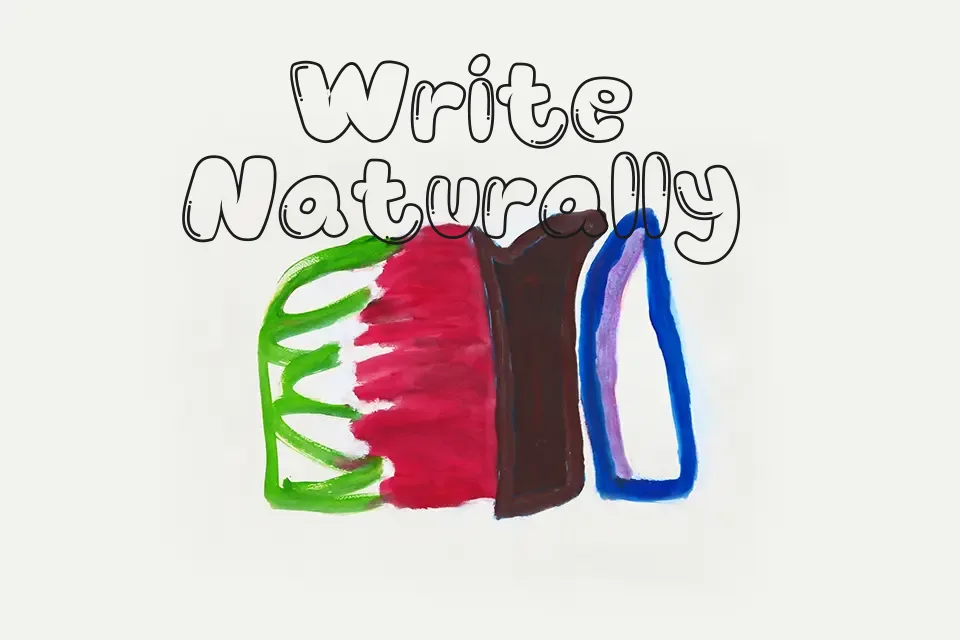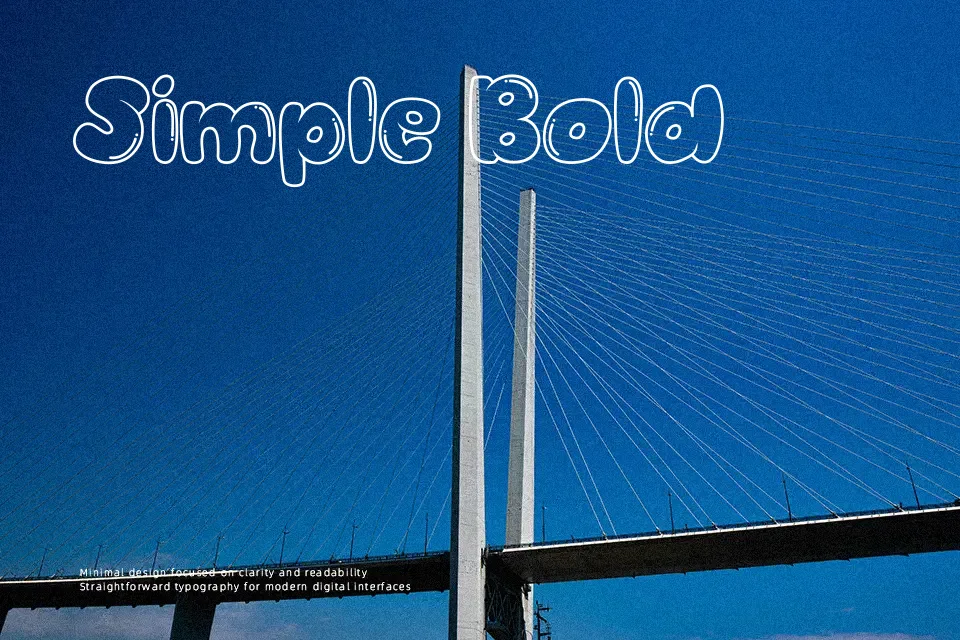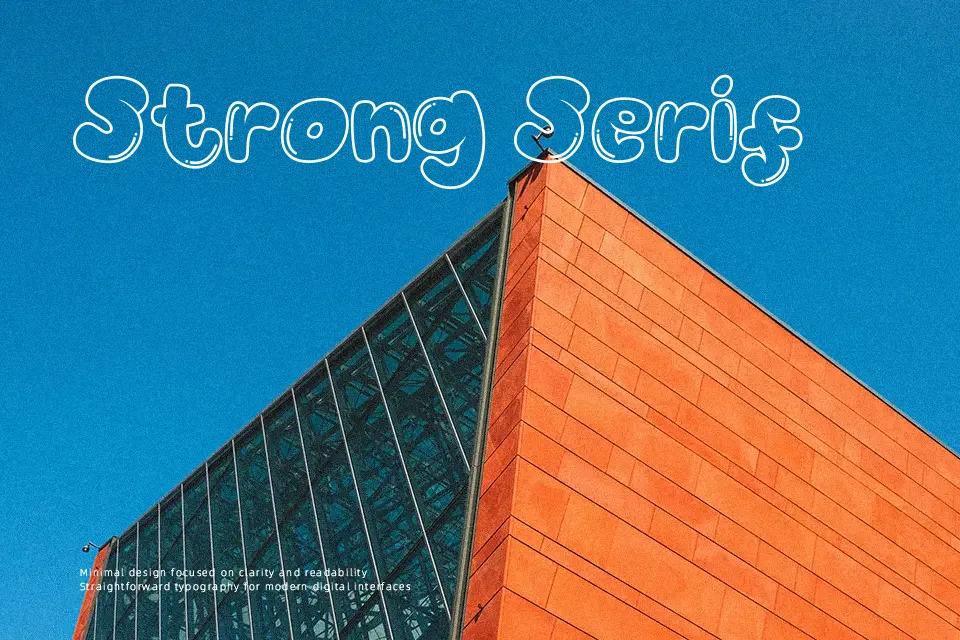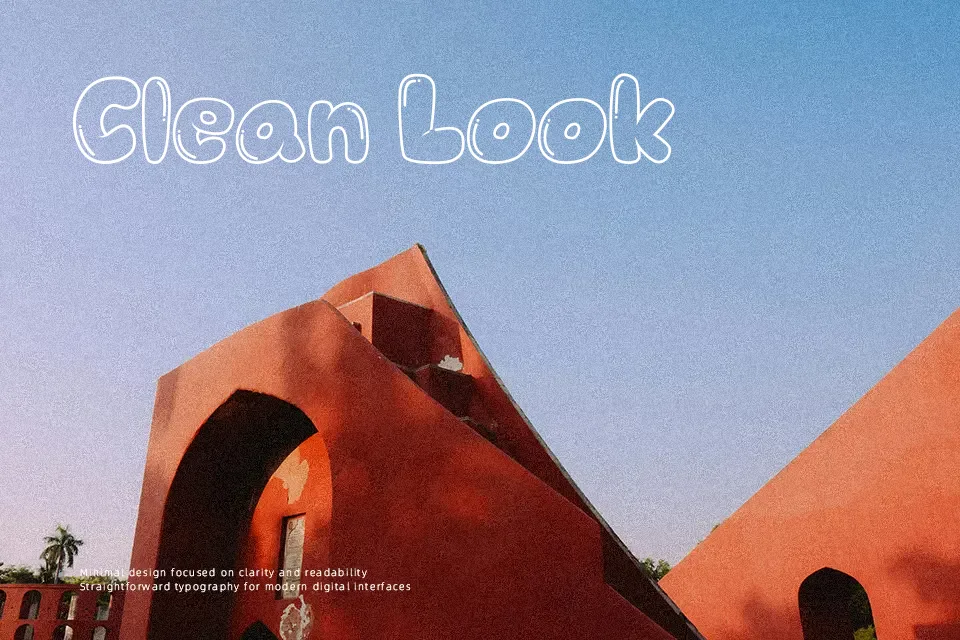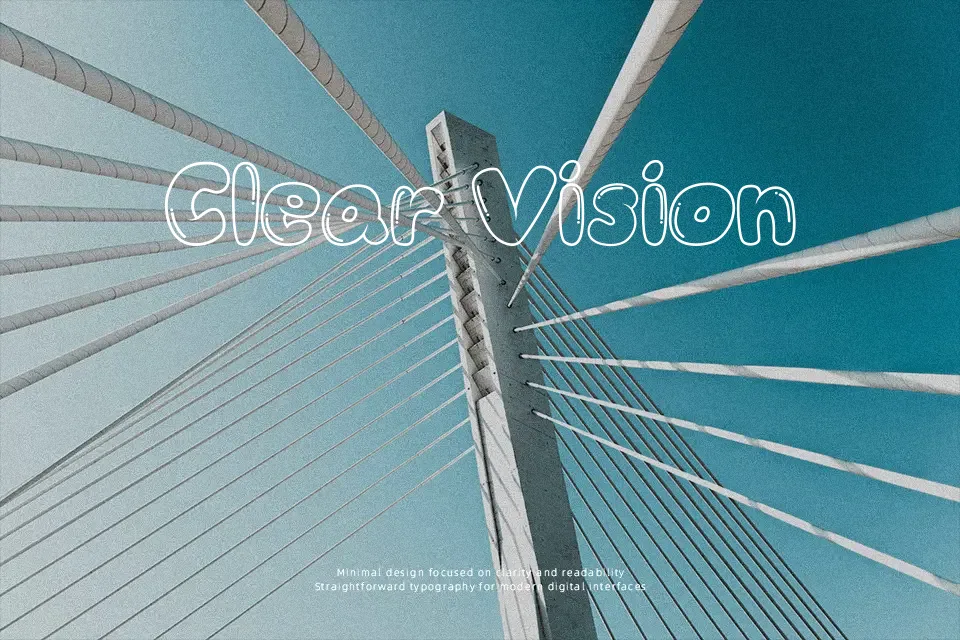
Balonku Font
Designed by Vable Studio
The letters in Balonku are thick, rounded, and slightly inflated, giving the strokes a soft, bubble-like contour with low contrast and tight spacing that holds headlines together visually. This decorative display style reads as casual and childlike rather than formal, so it works nicely on kids’ birthday posters, party banners, toy packaging, or playful logos that need a cartoon tone. Because of its decorative outlines and dense shapes, it quickly becomes tiring in long paragraphs or small sizes, and it does not suit professional or corporate communication. Use it when you want a fun, friendly focal word or short phrase, and switch to a simpler sans or serif font when clarity and long-form readability matter more.
kids’ birthday invitation headlines
children’s book or poster titles
playful kids’ product or toy logos
long paragraph text or body copy
formal corporate reports or presentations
serious editorial or news layouts
small-size interface text and menus
Perfect for headline, kids, and logo, with a cute and decorative style.